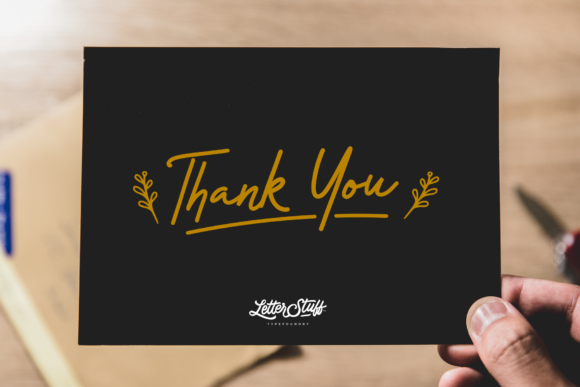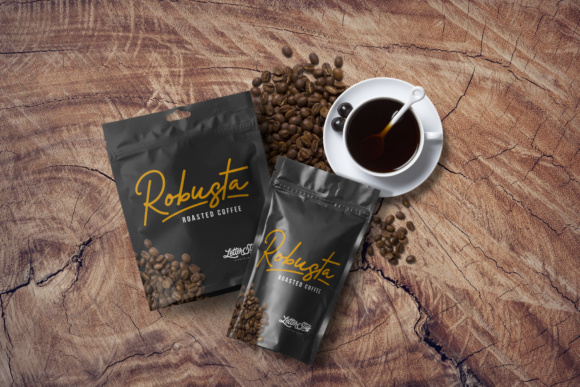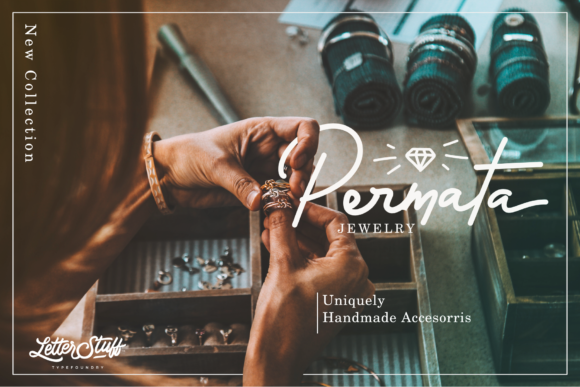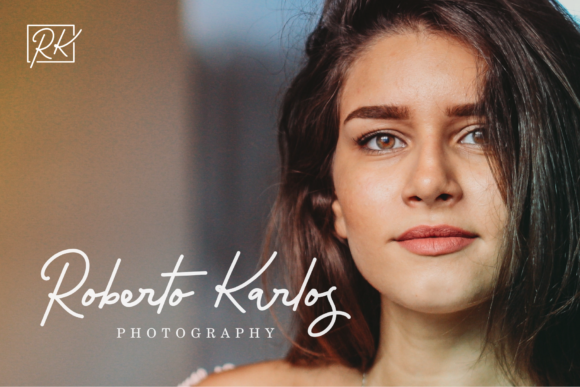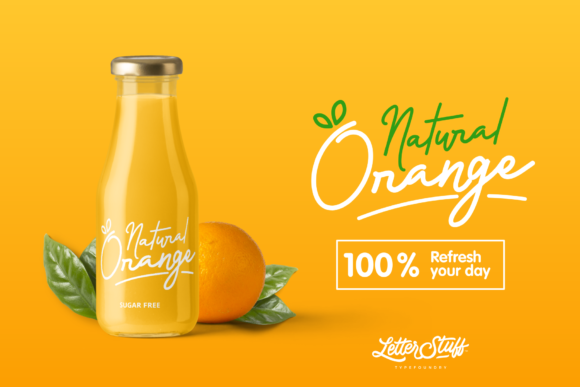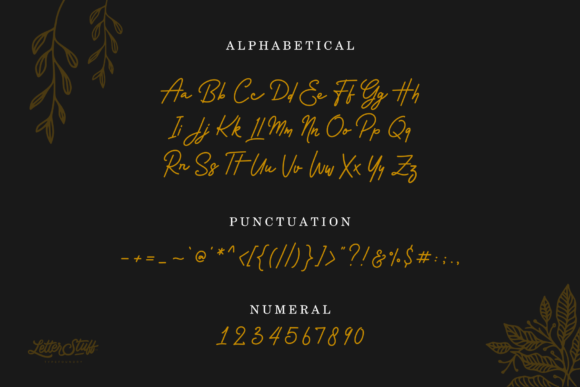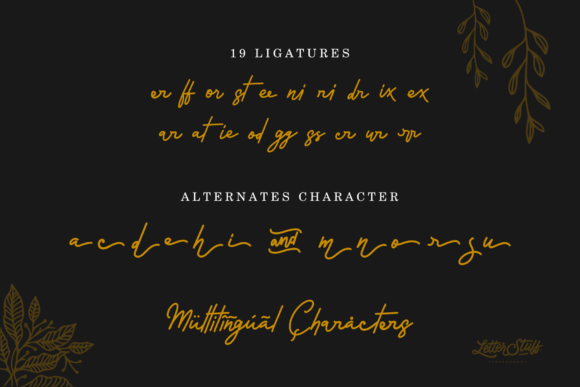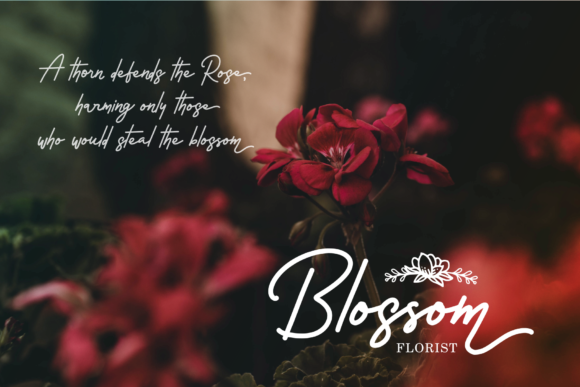
Rossela Font
About Rossela Font
The Rossela is an amazing signature font. It has beautiful handwritten curves with a natural feel. Perfect for adding an elegant touch to your designs.